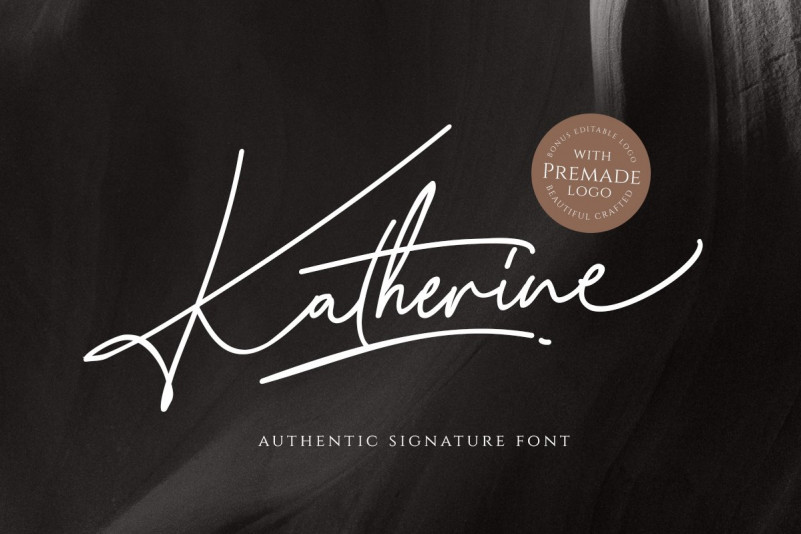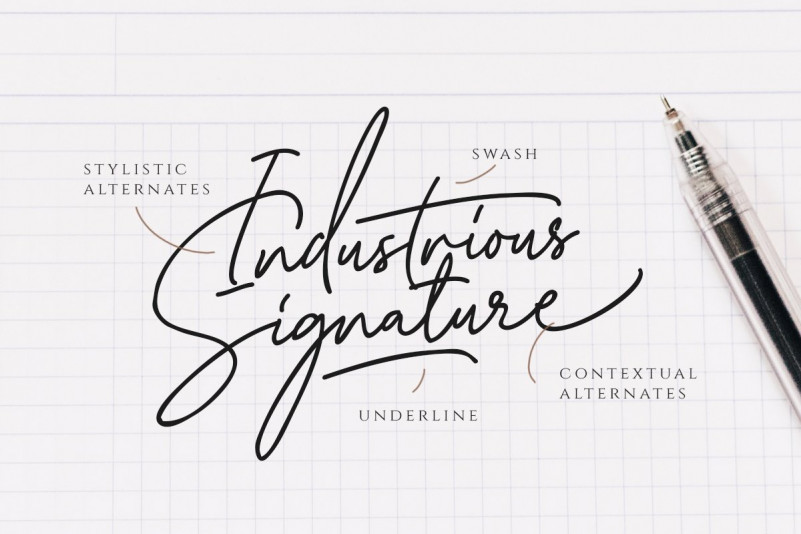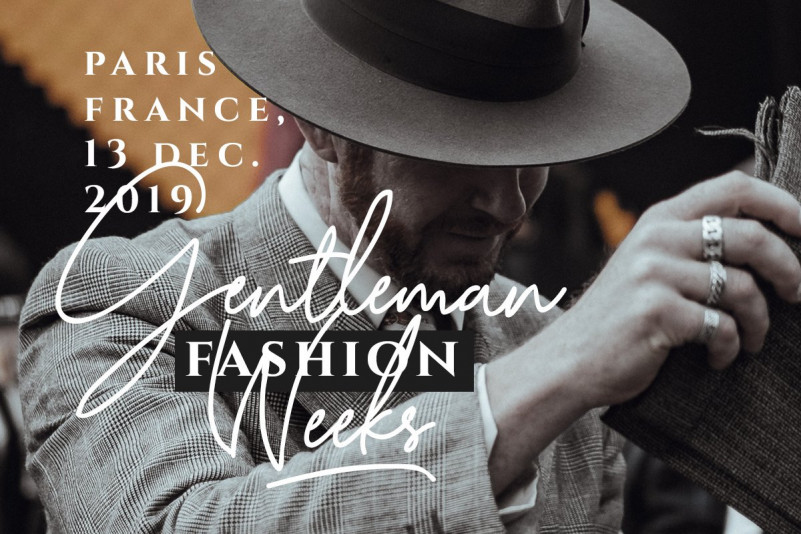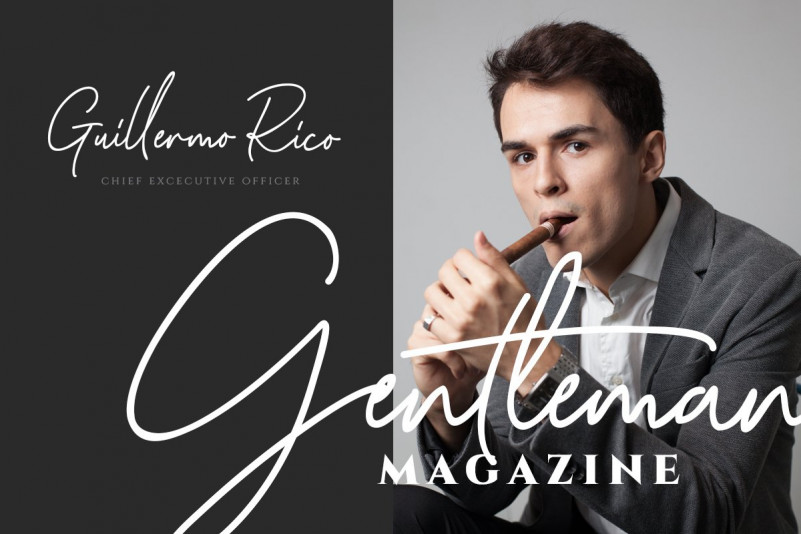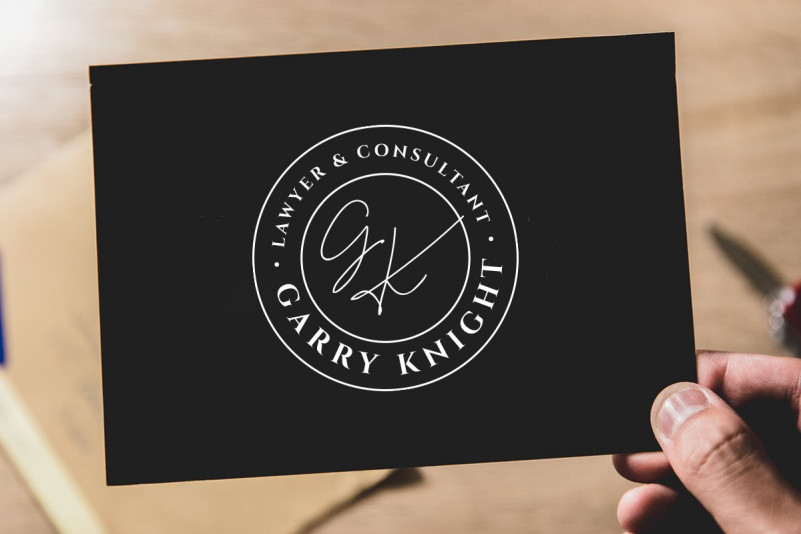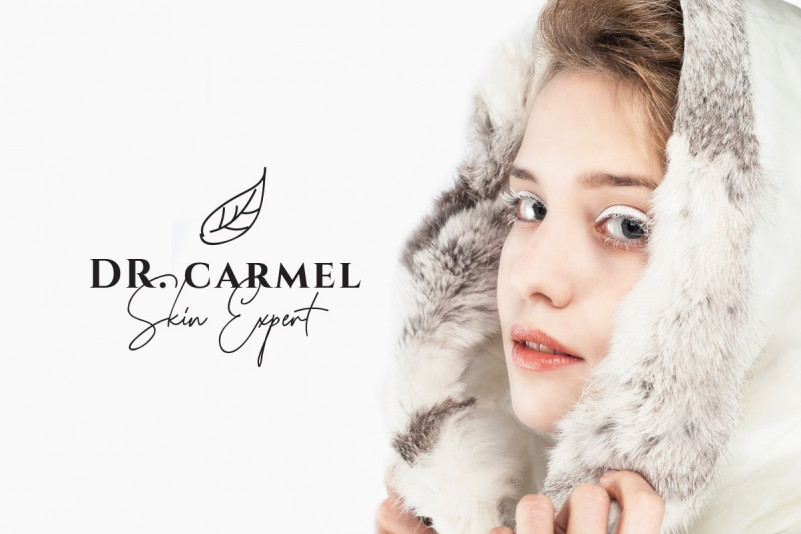
Katherine Script Font
Introducing, Katherine Script, An Authentic Signature with EXTRAS!
Katherine Script is an authentic signature that contain lowercase, uppercase, symbol, and also support multi language. Katherine Script also suitable for logo branding, beautiful fashion design, suitable for wedding invitation, or handwritten quote. Also already PUA Encoded. Plus 9 Premade logo for you!